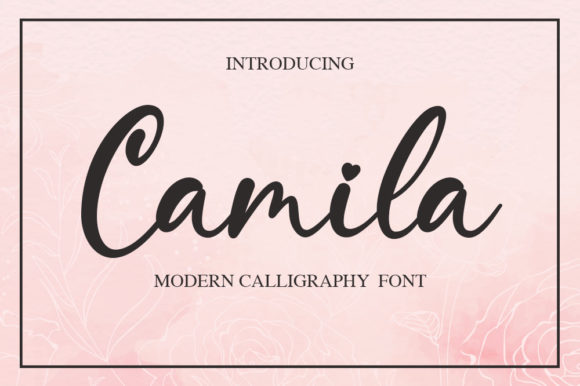
The Sweet Spot: Discovering the Charm of Camila Font
I’ll never forget the time I was working on a wedding invitation project, and my client asked for a font that was “sweet, joyful, and romantic.” I scoured the internet, tried out dozens of fonts, but nothing seemed quite right. That was until I stumbled upon Camila Font. ✨ This dainty and flowing handwritten font won my heart, and I’ve been hooked ever since. In this article, I’ll share my love for Camila, its features, and how to make the most of it in your designs.
An Honest Review of Camila Font
- ✨ Sweet and joyful personality that adds a touch of romance to any design
- 🎨 Beautifully crafted with a high level of detail and care
- 💕 Perfect for wedding invitations, cards, and other personal designs
While Camila Font is an excellent choice for many projects, there are a few things to keep in mind: 🤔
- ⚠️ Limited availability of stylistic alternates, which might limit its use in some designs
- ⚠️ Not the best choice for body text or long paragraphs, as it’s more suited for headings and titles
The Story Behind Camila Font
Camila Font was designed with love and care by a talented type designer who wanted to create a font that would bring joy and sweetness to designs. Inspired by traditional handwriting and calligraphy, Camila is a modern take on classic script fonts. 💕
Q: What type of designs is Camila Font best suited for?
A: Camila Font is perfect for designs that require a sweet, joyful, and romantic touch, such as wedding invitations, cards, and other personal designs.